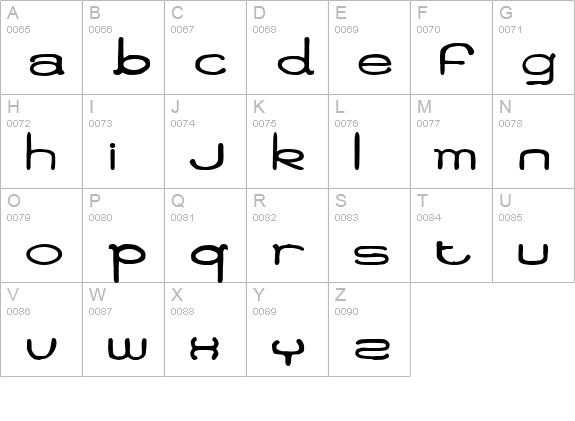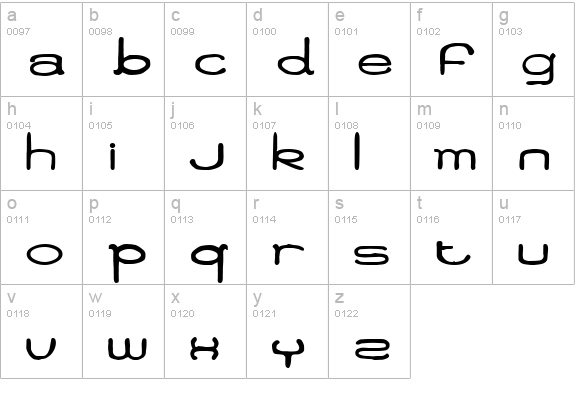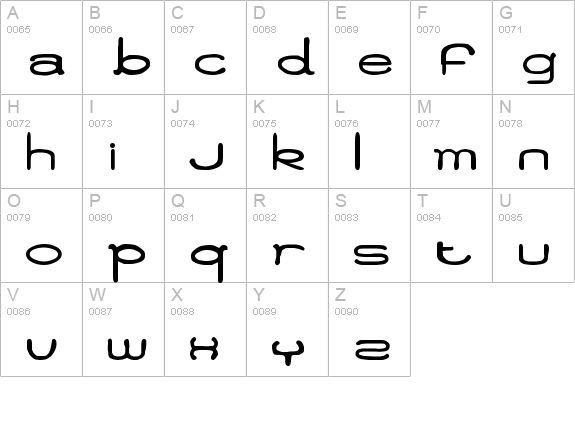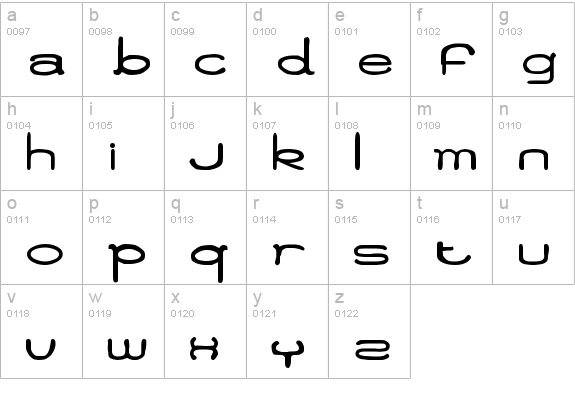
Introducing Jamiro, a stunning and versatile font that embodies a perfect blend of modernity and elegance. This unique typeface is sure to make a lasting impression, whether used for branding, packaging, or any other creative project. With its sleek lines and captivating curves, Jamiro effortlessly captures attention and adds a touch of sophistication to any design. Its clean and legible letterforms ensure readability across various sizes and mediums, making it ideal for both digital and print applications. But what sets Jamiro apart is not just its exceptional aesthetic appeal; it's also the fact that it is completely free! Yes, you read that right. Jamiro is freely available to download at FontsMarket.com. This means that you can enhance your design projects without having to worry about any cost constraints. Downloading Jamiro is a breeze, and once you have it in your font library, the possibilities are endless. Whether you are a professional designer or a hobbyist, this font will undoubtedly become a go-to choice due to its versatility and timeless appeal. So why wait? Unlock the creative potential of your projects with Jamiro. Download this remarkable font today, exclusively at FontsMarket.com, and let your designs shine with the perfect blend of style and accessibility.